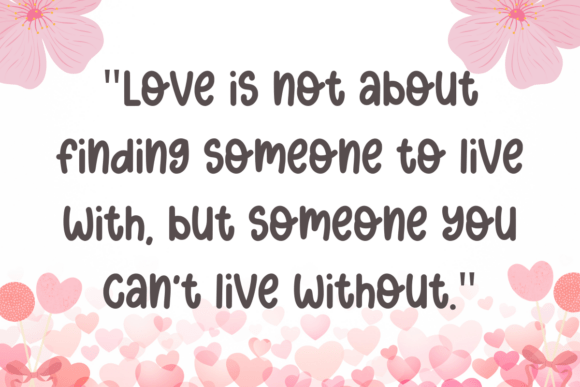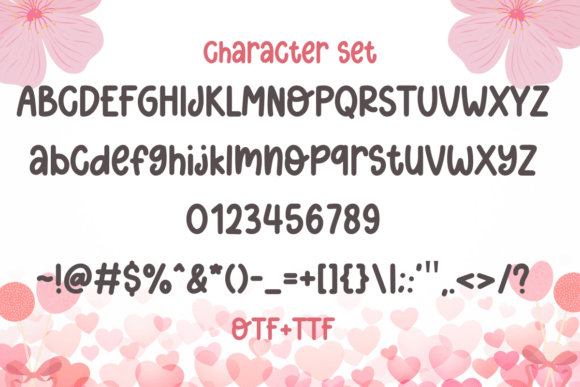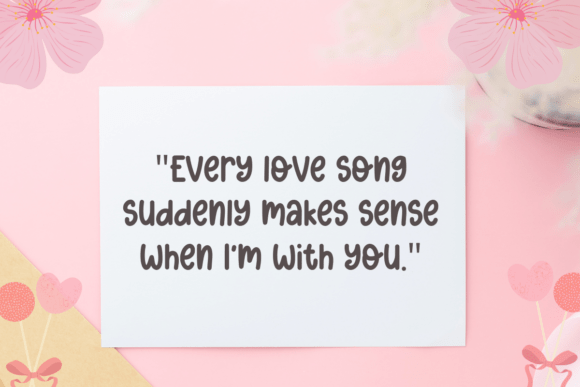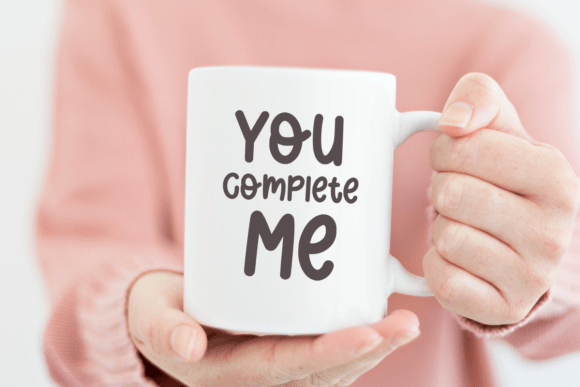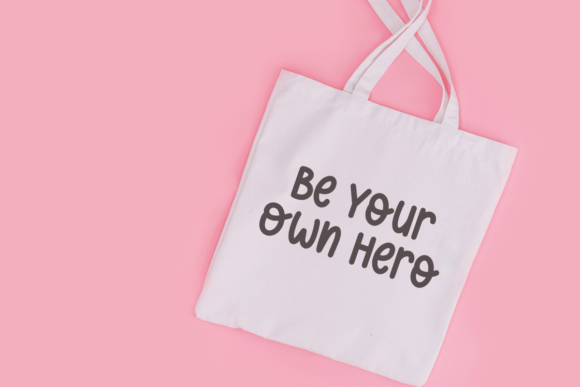
Introducing Element Romance Font: The Perfect Companion for Crafters and Designers
Are you a crafter, designer, or maker looking for a font that can add a touch of personality to your projects? Look no further than Element Romance Font! This fun and playful handwritten font is perfect for a wide range of creative endeavors, from crafts and planners to KDP, stickers, greeting cards, and more.
What Makes Element Romance Font So Special?
Element Romance Font is a unique and charming font that is sure to capture the hearts of crafters and designers alike. Its cute and friendly style makes it an ideal choice for anyone looking to add a personal touch to their projects. Whether you’re creating custom stickers, greeting cards, or decorations, this font is sure to bring a smile to your face and make your projects stand out.
Perfect for Cricut, Sublimation, and DIY Projects
Element Romance Font is a versatile font that can be used with a variety of cutting machines and design software, including Cricut. Its compatibility with sublimation printing also makes it perfect for creating custom products, such as mugs, tumblers, and more. Additionally, this font is ideal for creative DIY projects, such as handmade cards, gift tags, and decorations.
Endless Possibilities for Crafters and Designers
The possibilities are endless with Element Romance Font! Here are just a few ideas to get you started:
- Create custom stickers and labels for your planners, journals, and crafts
- Design personalized greeting cards and gift tags for special occasions
- Make custom decorations for your home or office, such as wall art and signs
- Create unique and eye-catching sublimation products, such as mugs and tumblers
- Add a personal touch to your KDP projects, such as journals and planners
Why Choose Element Romance Font?
So why choose Element Romance Font over other fonts? Here are just a few reasons why this font stands out:
- Unique and Playful Style: Element Romance Font has a one-of-a-kind style that is sure to add a touch of personality to your projects
- High-Quality Design: This font is designed with high-quality and clarity in mind, making it perfect for printing and digital use
- Versatile: This font can be used for a wide range of projects, from crafts and DIY to sublimation and KDP
Tips and Tricks for Using Element Romance Font
Here are a few tips and tricks for getting the most out of Element Romance Font:
Element Romance Font is a fun and playful handwritten font that is perfect for crafters, designers, and makers. With its cute and friendly style, it’s ideal for a wide range of creative projects, from crafts and planners to KDP, stickers, greeting cards, and more. Whether you’re a seasoned designer or just starting out, this font is sure to bring a touch of personality and whimsy to your projects. So why wait? Download Element Romance Font today and start creating!